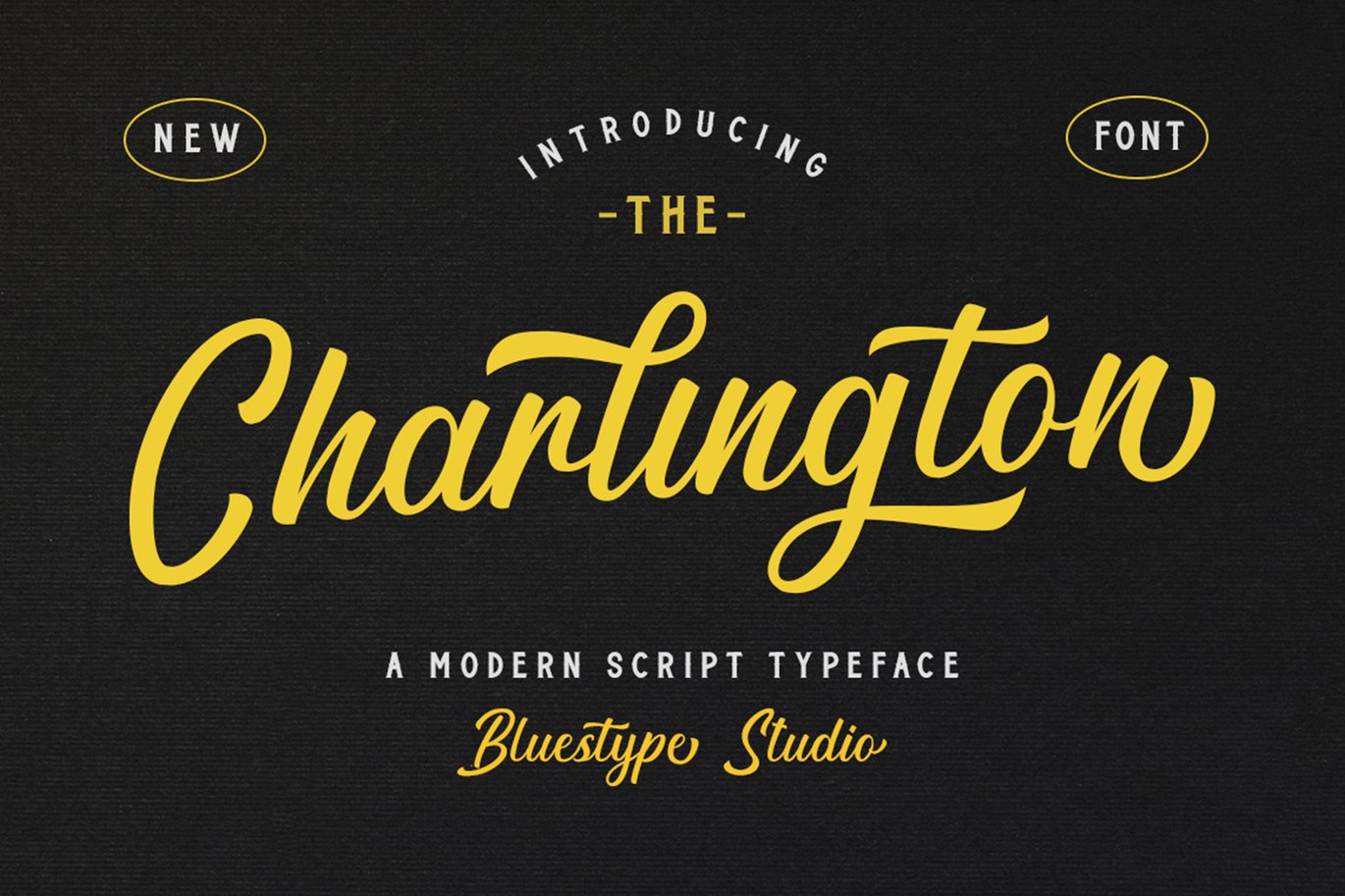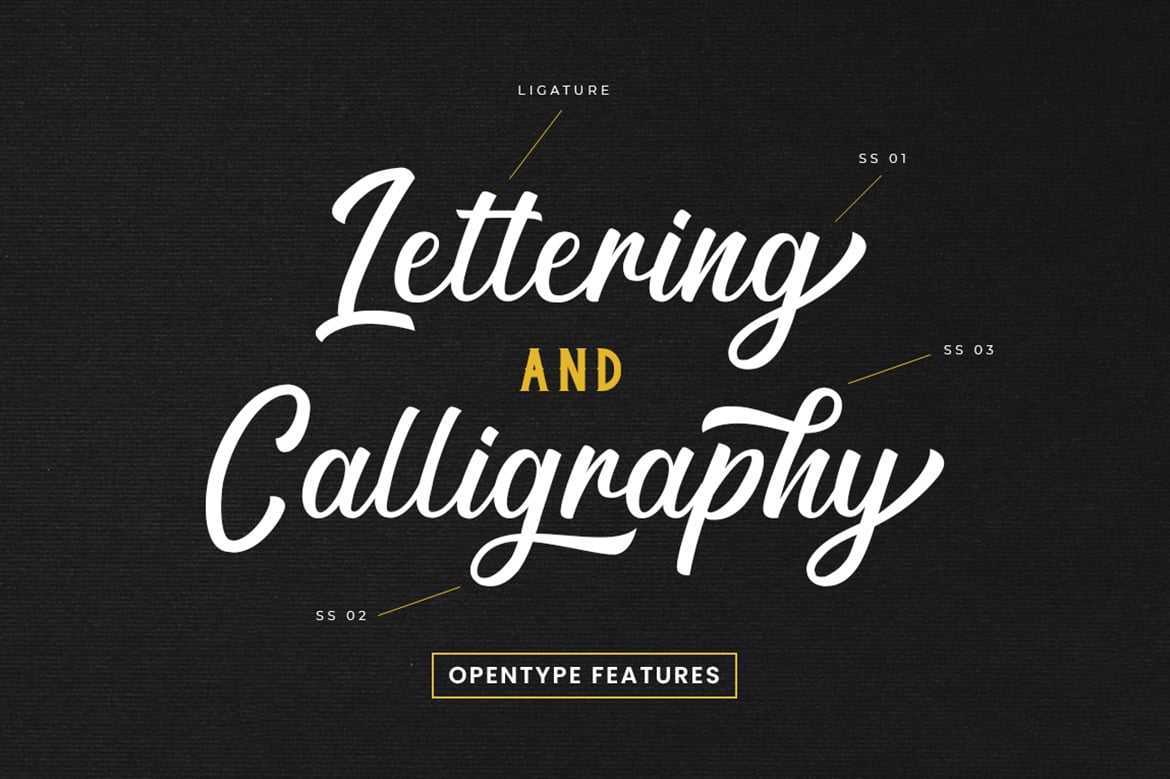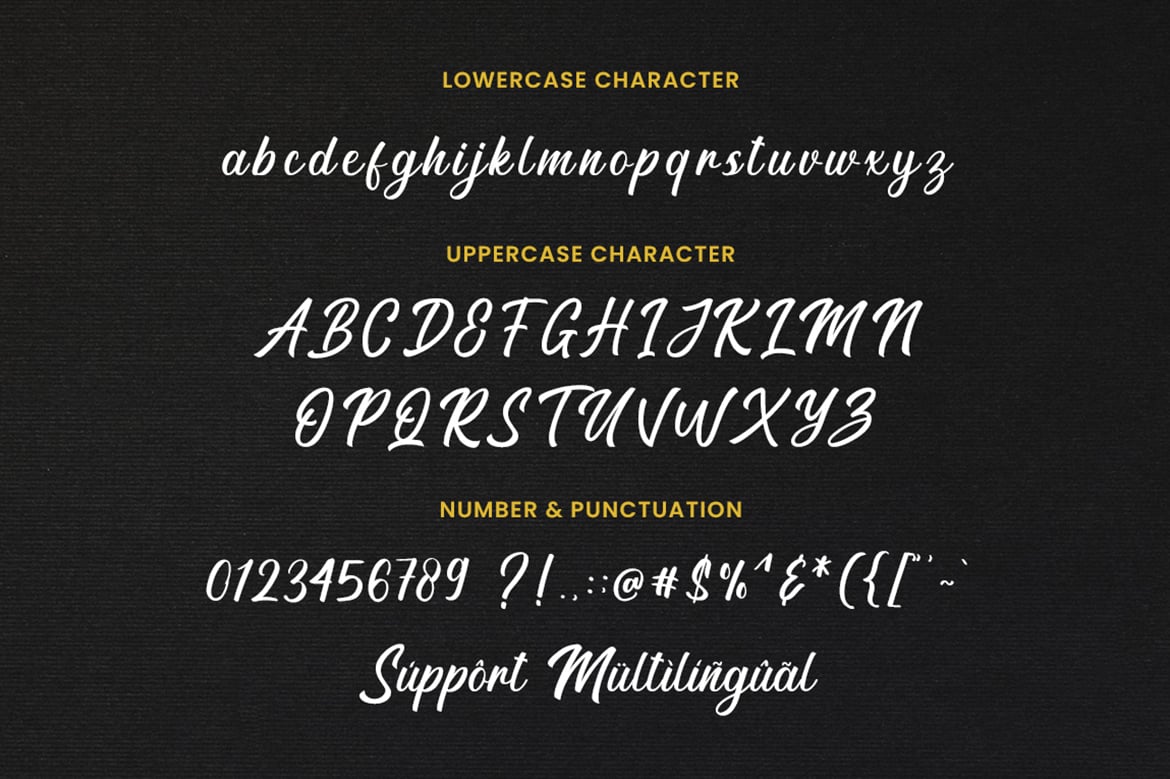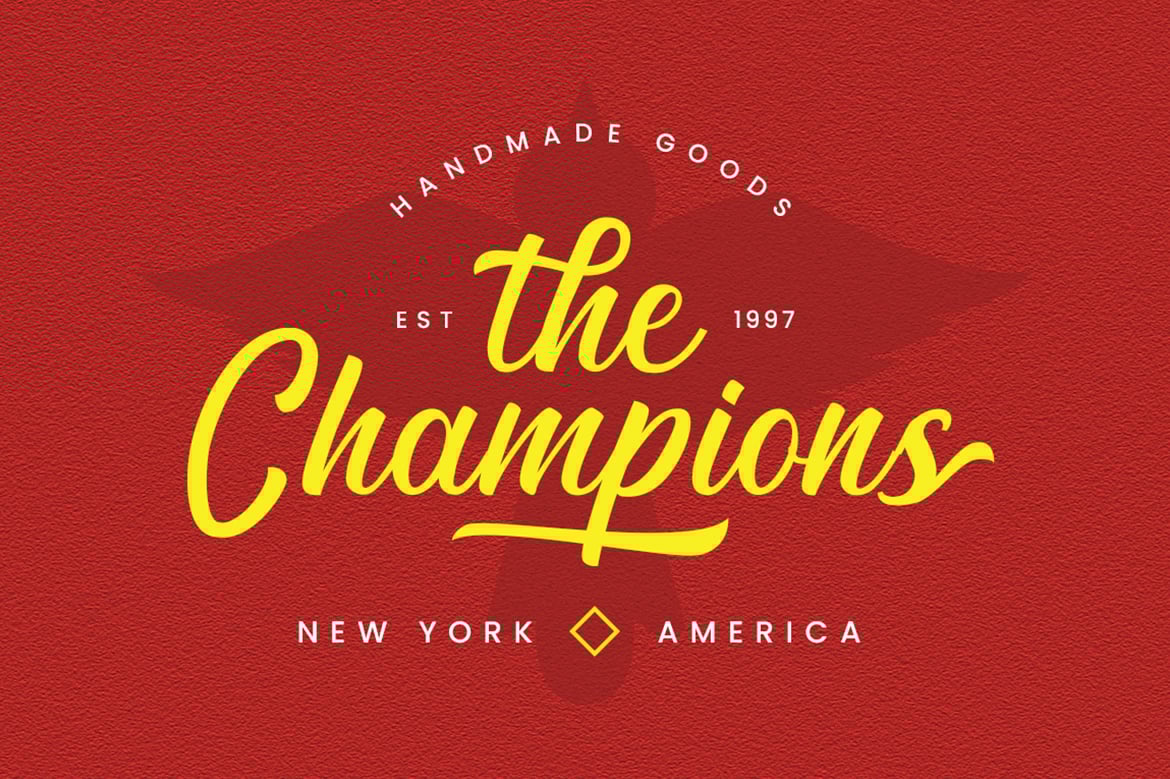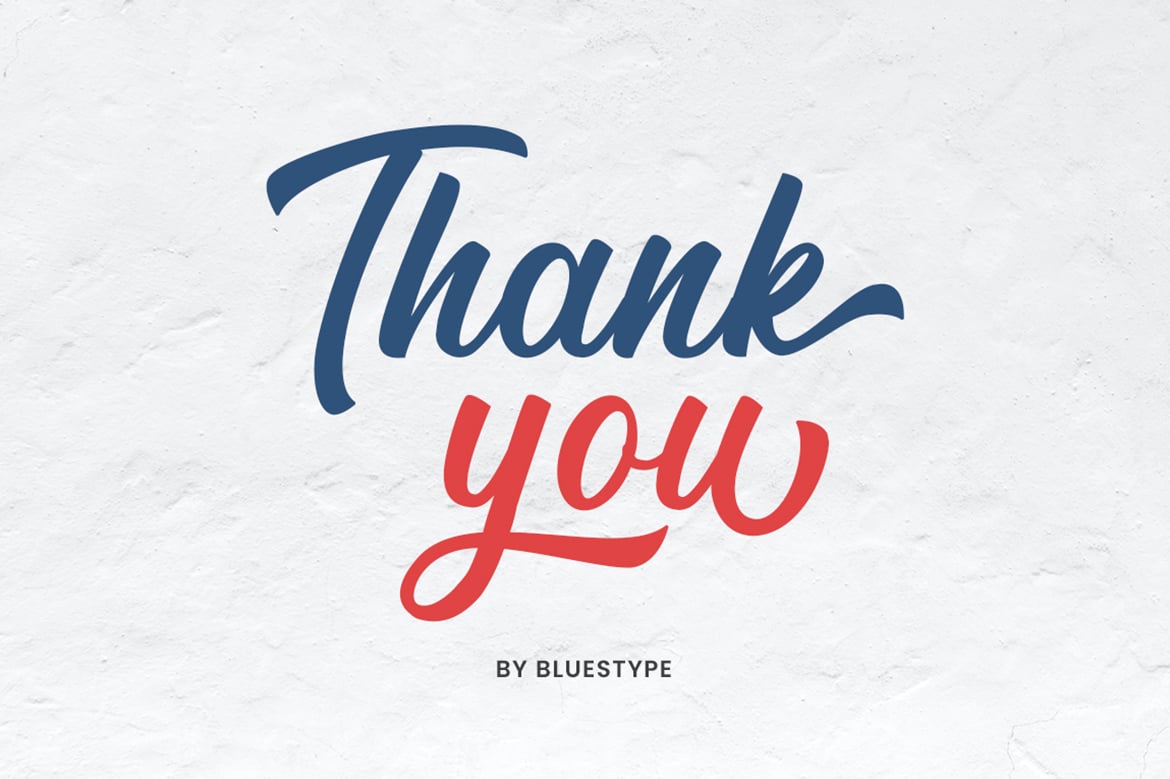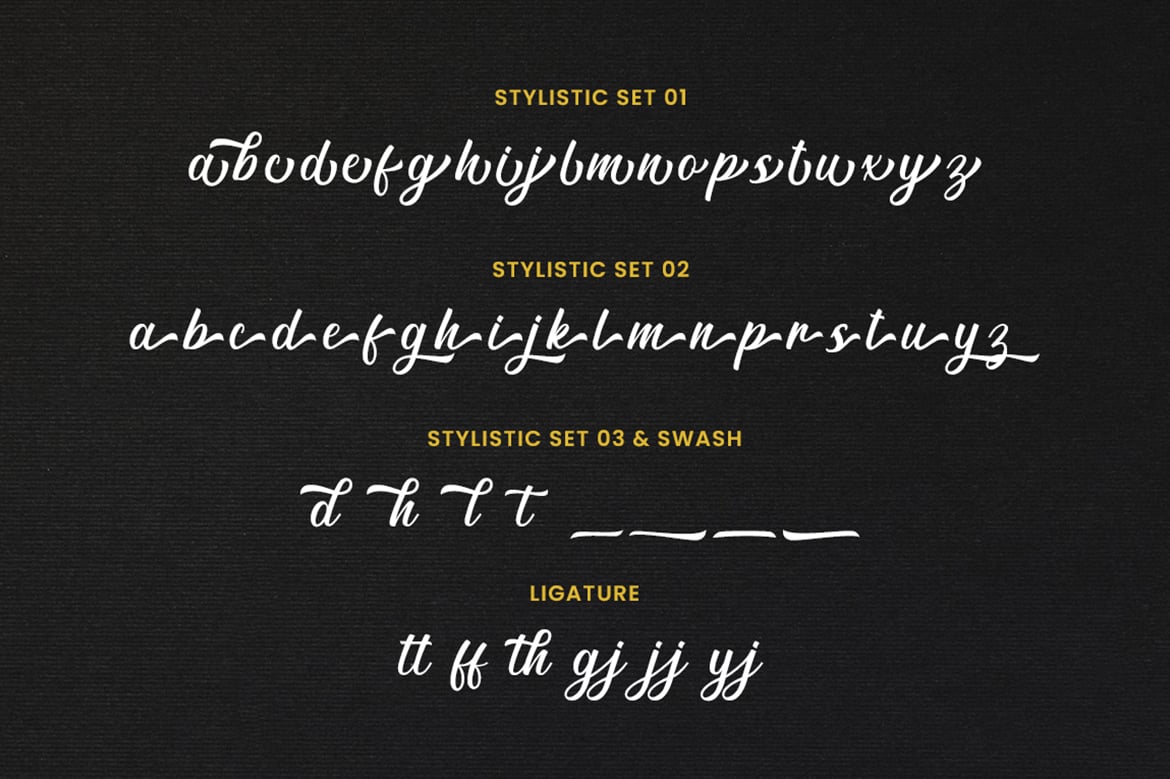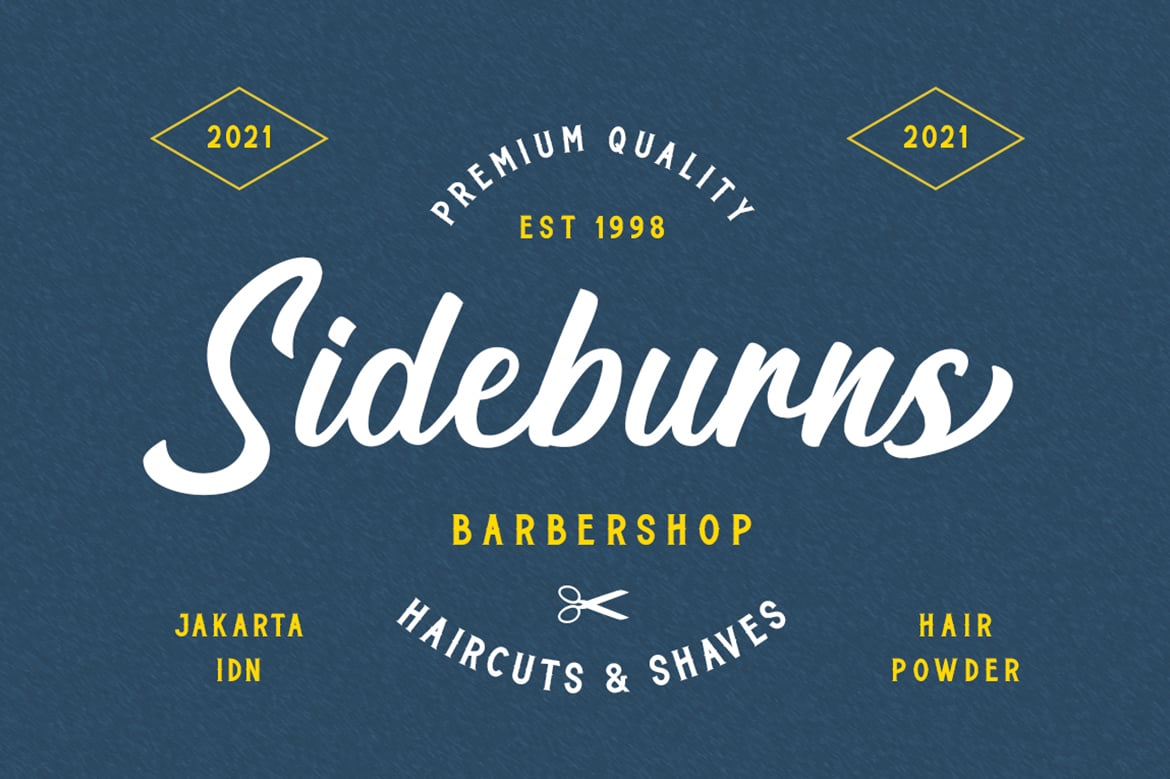
Charlington – Lettering Font
This is our latest product called Charlington. Charlington is a modern script calligraphy with beautiful and cool curves.
- Stylistic Set
- Swash
- Multilingual Support.